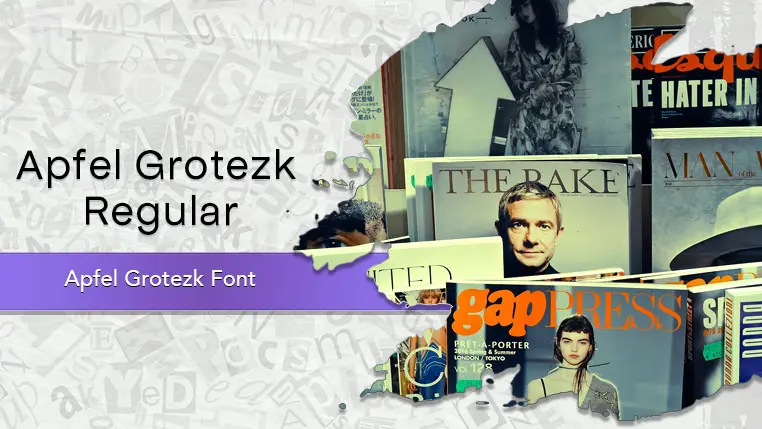
The Apfel Grotezk font family may be ideal for you if you enjoy working on an artistic design project. The lively, expressive look of this typeface, which was created by Collletttivo, makes it ideal for Headlines and Display Text, Websites and Digital Interfaces. Editorial Design such as magazines, brochures, and publications where a contemporary and readable sans-serif is desired for both headlines and supporting text. Its clear and unambiguous letterforms are good for presenting information cleanly and efficiently. and other light-hearted visual projects.
Regular, Regular are the two primary font styles of the Apfel Grotezk font family. You may build dynamic, visually appealing text layouts with the distinct flair that each style offers. With crisp, readable lines and a relaxed tone.